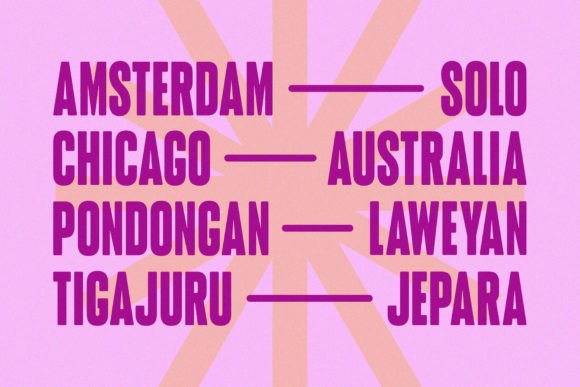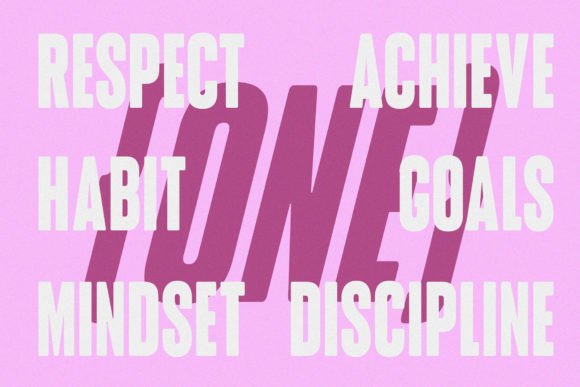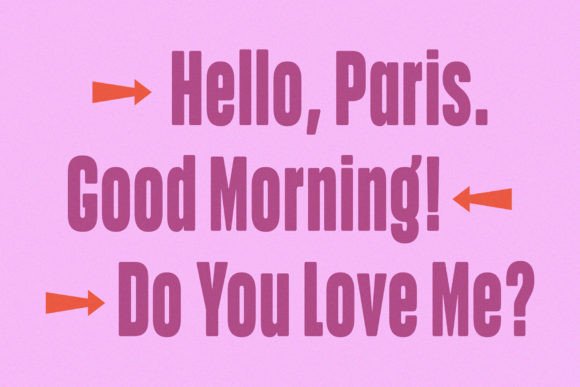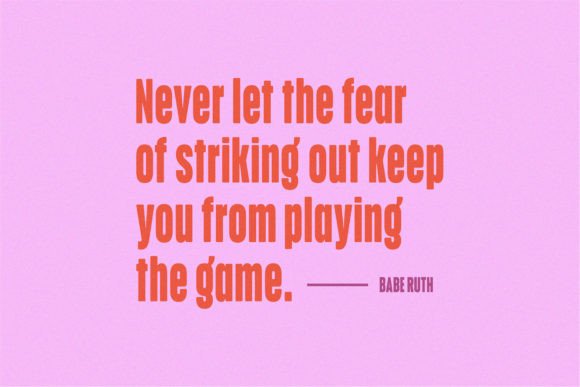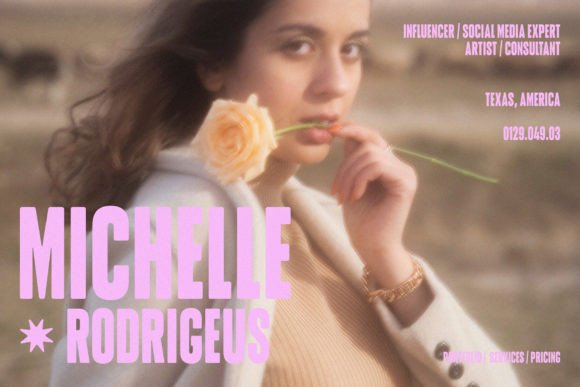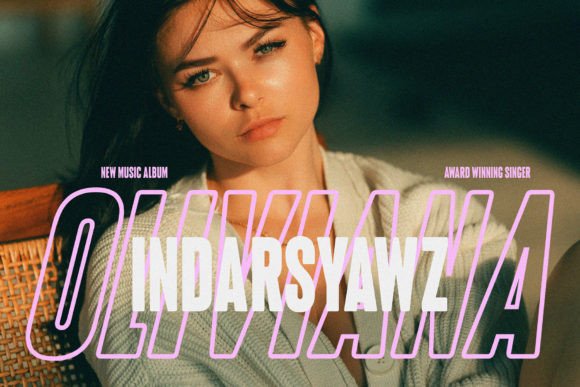
Introduction to Qikober Font
Have you ever stared at a blank page, waiting for the perfect font to bring your creative vision to life? The excitement of a new project is always palpable, but the search for the right design resource can be daunting. That’s where Qikober Font comes in – a game-changing addition to any designer’s library.
With its bold, rounded condensed style, Qikober Font is the perfect solution for making your project stand out from the rest. Whether you’re working on a magazine headline, a billboard, or a website title, this high-quality font is sure to elevate your creative project to new heights. And the best part? Its versatility shines through even in small point sizes, making it a valuable asset for designers of all levels.
Key Features of Qikober Font
- Unique, high-quality design suitable for various creative projects
Honest Review: Qikober Font
I recently stumbled upon the Qikober Font while searching for free design resources for a creative project. As a designer, I’m always on the lookout for high-quality fonts to elevate my work, and I must say that Qikober Font did not disappoint.
What works well with the Qikober Font is its versatility. It comes in multiple weights and styles, making it perfect for a wide range of design projects, from logos to brochures. The font is also highly legible, even on a transparent background, which is a must-have for modern designs.
- ✨ High-quality design: The font is clean, crisp, and professional-looking.
- ✨ Multiple weights and styles: Perfect for creating visual hierarchy and adding depth to your design.
However, I did encounter a few limitations with the Qikober Font. For example:
- ⚠️ Limited customization options: The font is a bit rigid in terms of customizations, which may not be suitable for all design projects.
- ⚠️ Not suitable for dynamic content: The font may not be the best choice for dynamic content, such as text that changes frequently.
Overall, I’m impressed with the Qikober Font. While it may have some limitations, its high-quality design and versatility make it a valuable resource for designers. I’d definitely recommend it for creative projects that require a clean and professional look.